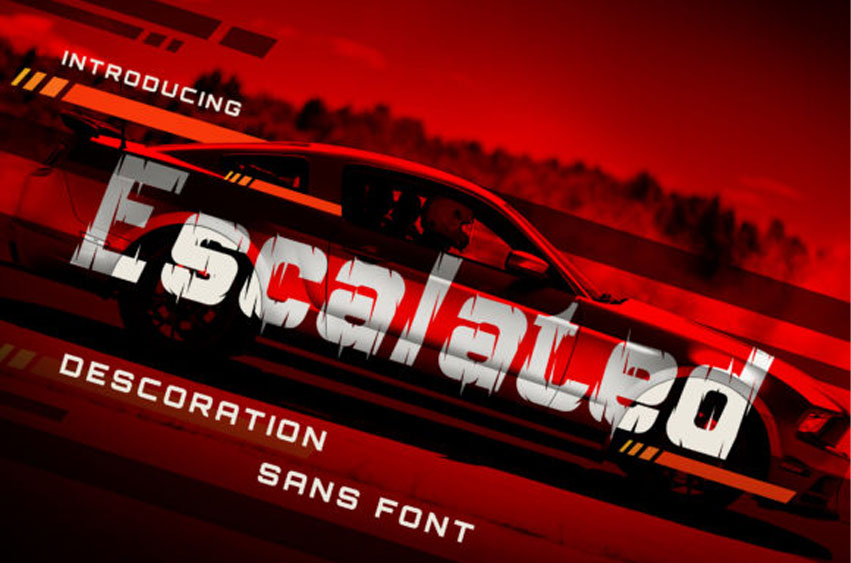
Escalated Font
Escalated Font is an incredibly unique and interesting display font.
Add it to each of your racing themed ideas and notice how it makes them come alive!